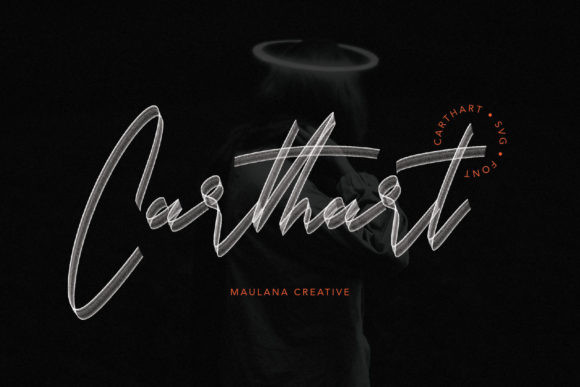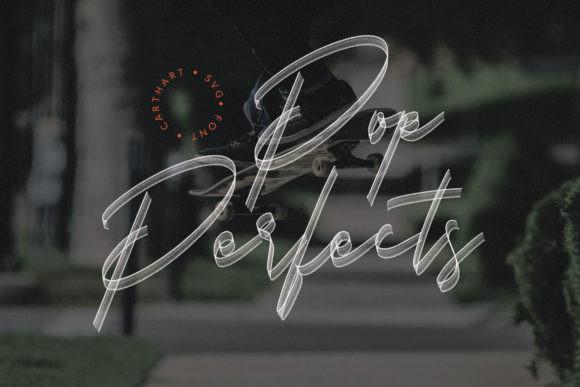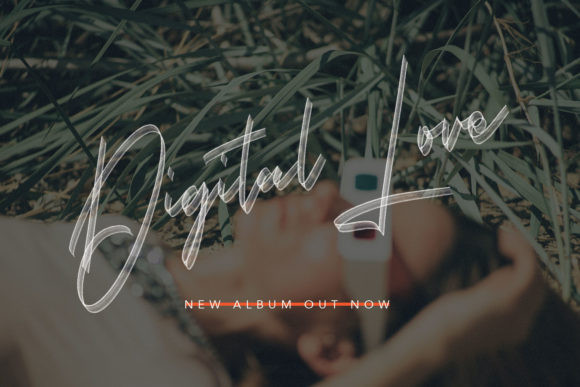
Carthart Font
Give your designs an authentic brush feel with the wonderful Carthart script font. Masterfully designed to become a true favorite, this font has the potential to bring each of your creative ideas to the highest level!